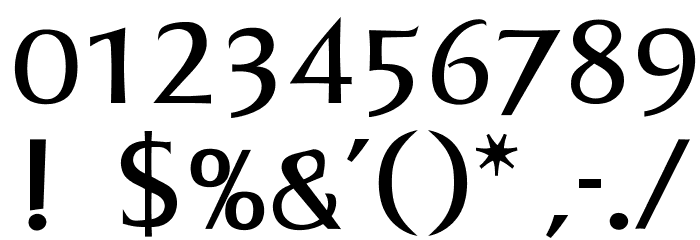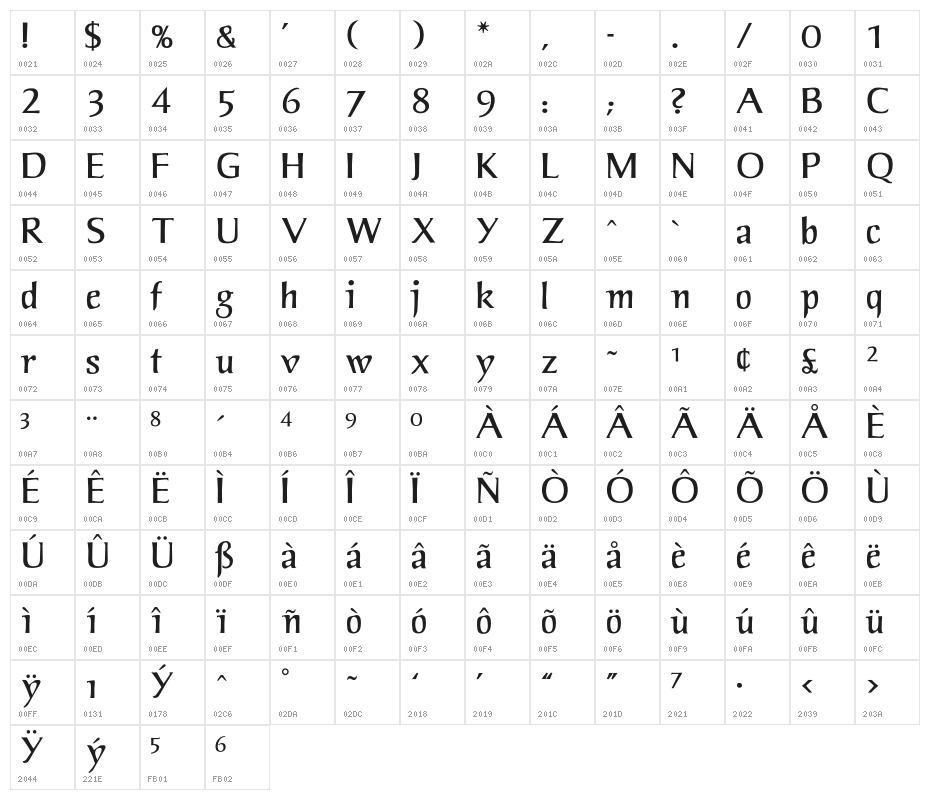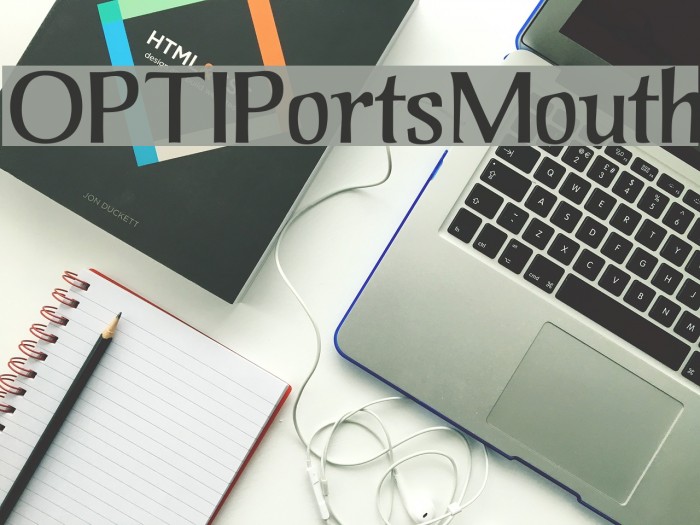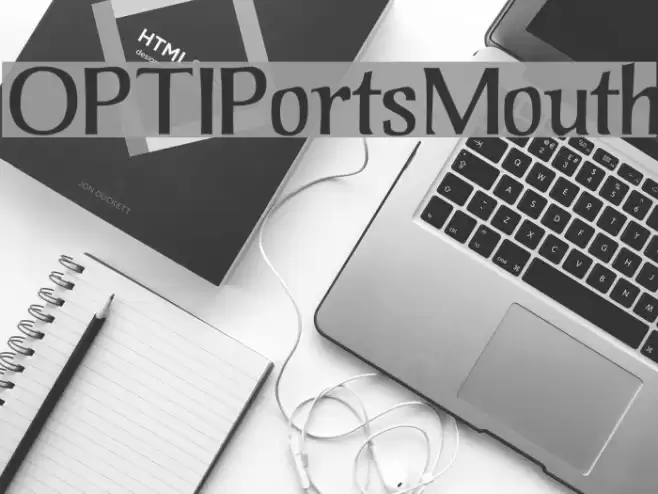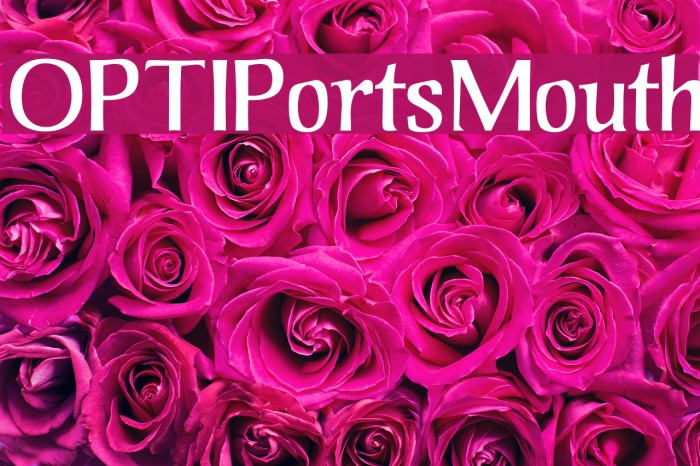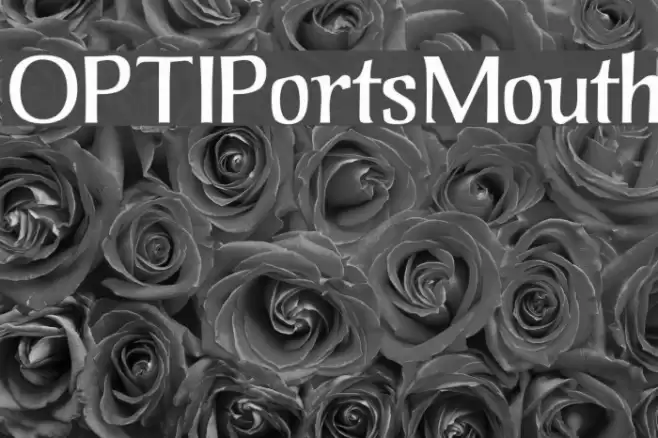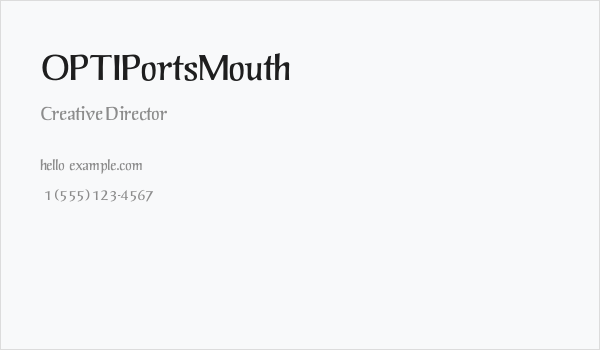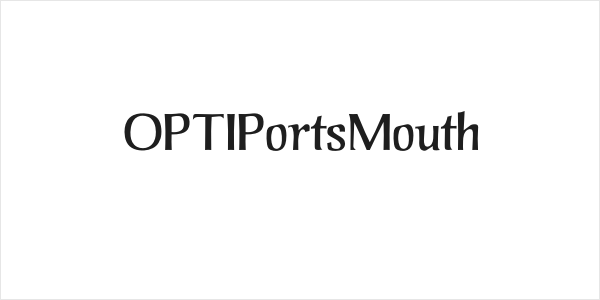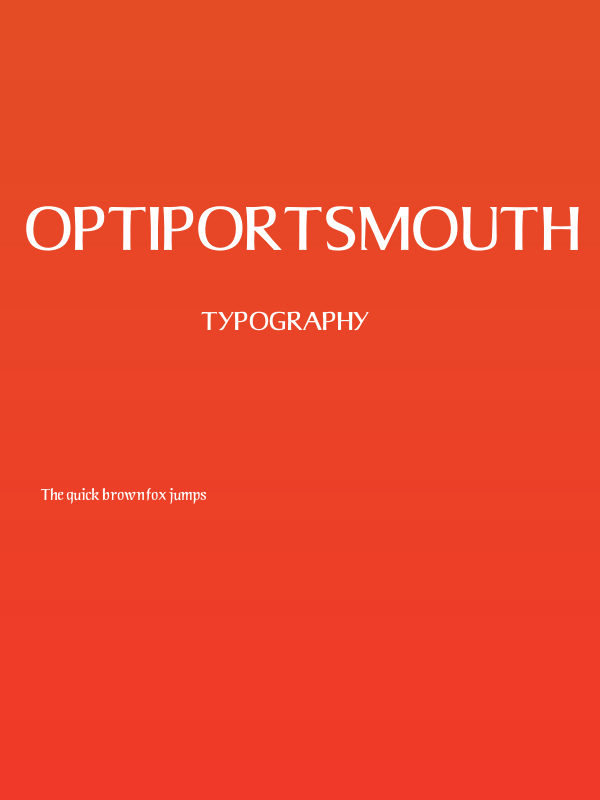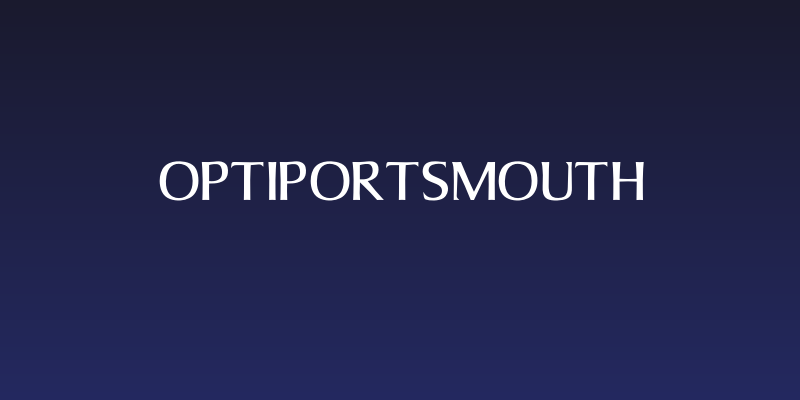
OPTIPortsMouth Font
OPTIPortsMouth Description
This font features a distinctive and elegant style with a classic touch. The uppercase letters are bold and slightly condensed, giving them a strong presence. The lowercase letters have a unique flair, with some characters exhibiting a slight slant, adding a dynamic feel. The numerals are well-proportioned, maintaining the font's overall aesthetic. Special characters are crafted with attention to detail, ensuring consistency across the set. The font's design is suitable for projects that require a touch of sophistication and tradition, while still being versatile enough for modern applications.